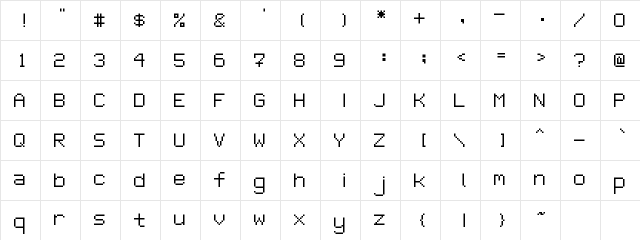
Agamefont Medium
Design Context for Agamefont Typeface
Agamefont offers clean, dependable letterforms without strong stylistic allegiance, making it a practical choice for designers who need flexibility.
Pro Tip: Pair Agamefont with a font of contrasting weight or personality to build a more expressive typographic hierarchy.